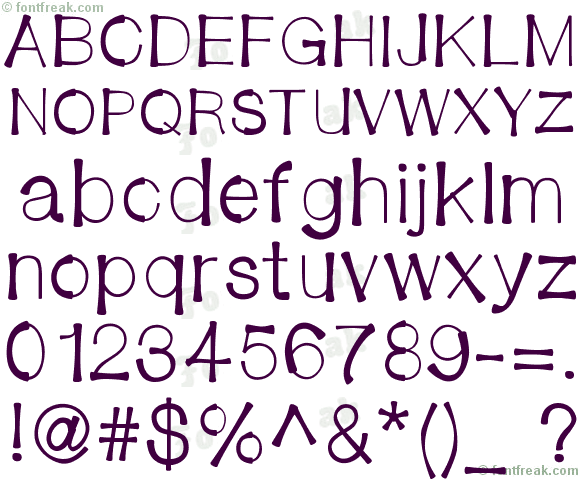
BendyStraw
About BendyStraw
BendyStraw by Shara Weber is a captivating display font that brings a playful yet stylish flair to any project. Characterized by its whimsical, curvy letterforms, this font falls into the decorative category, making it perfect for creative applications. The strokes of BendyStraw are thick and bold, exuding a sense of fun and approachability. With rounded edges and a slightly irregular baseline, the font adds a dynamic quality that captures attention. The ample spacing between letters enhances readability while maintaining a light-hearted aesthetic.
BendyStraw is an excellent choice for a variety of use cases. It shines in wedding invitations, where its charming design can convey a sense of joy and celebration. Additionally, the font is suitable for restaurant menus, especially those featuring casual or family-friendly themes, as it invites diners to explore the offerings. Graphic designers will find BendyStraw ideal for creating engaging movie posters that need a touch of whimsy to attract audiences. Furthermore, it can be utilized in branding projects for small businesses looking to convey a friendly image, especially in industries such as children's products or creative services.
The target audience for BendyStraw includes graphic designers, small business owners, and content creators who seek to infuse their work with a unique character. Whether you're designing promotional materials or crafting social media graphics, this font offers versatility and charm.
What sets BendyStraw apart is its ability to balance playfulness with professionalism. It stands out not only for its distinctive visual appeal but also for its flexibility across various contexts. With a BendyStraw font free download available, you can easily incorporate this delightful typeface into your next project and elevate your design to new heights.